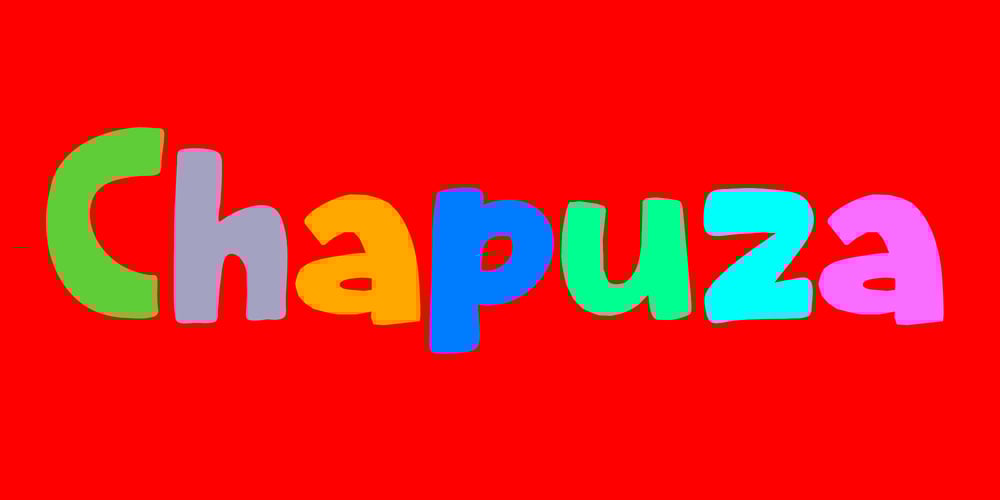
Chapuza Font Family was designed by David Kerkhoff and published by Kitchen Table Type Foundry. Chapuza contains 2 styles and family package options. Chapuza is Spanish for ‘shoddy piece of work’. I don’t consider my work to be shoddy, but I needed a funny name for this fun font and Chapuza it was!Chapuza is a cartoon-like font, ideally suited for children’s books, posters or libraries. It comes with extensive language support and an auto-rotating set of contextual alternates.